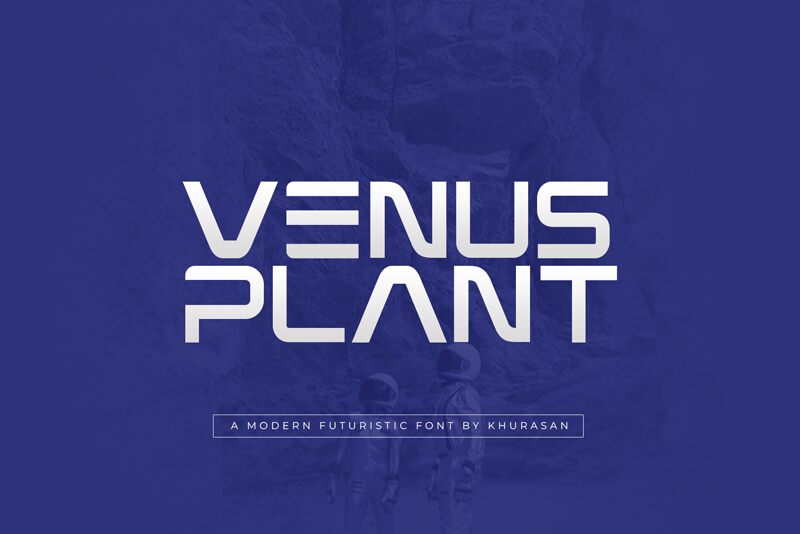
Venus Plant by Khurasan is a sleek and modern display font that has a futuristic feel to it. With its semi-light weight and expanded width, this font is perfect for creating eye-catching headlines, logos, and branding materials. Its unique style makes it suitable for various projects such as technology websites, sci-fi movies or TV series titles, and even product packaging for innovative gadgets. Use Venus Plant to add a touch of sophistication and innovation to your designs while ensuring maximum readability. Step into the future with Venus Plant!